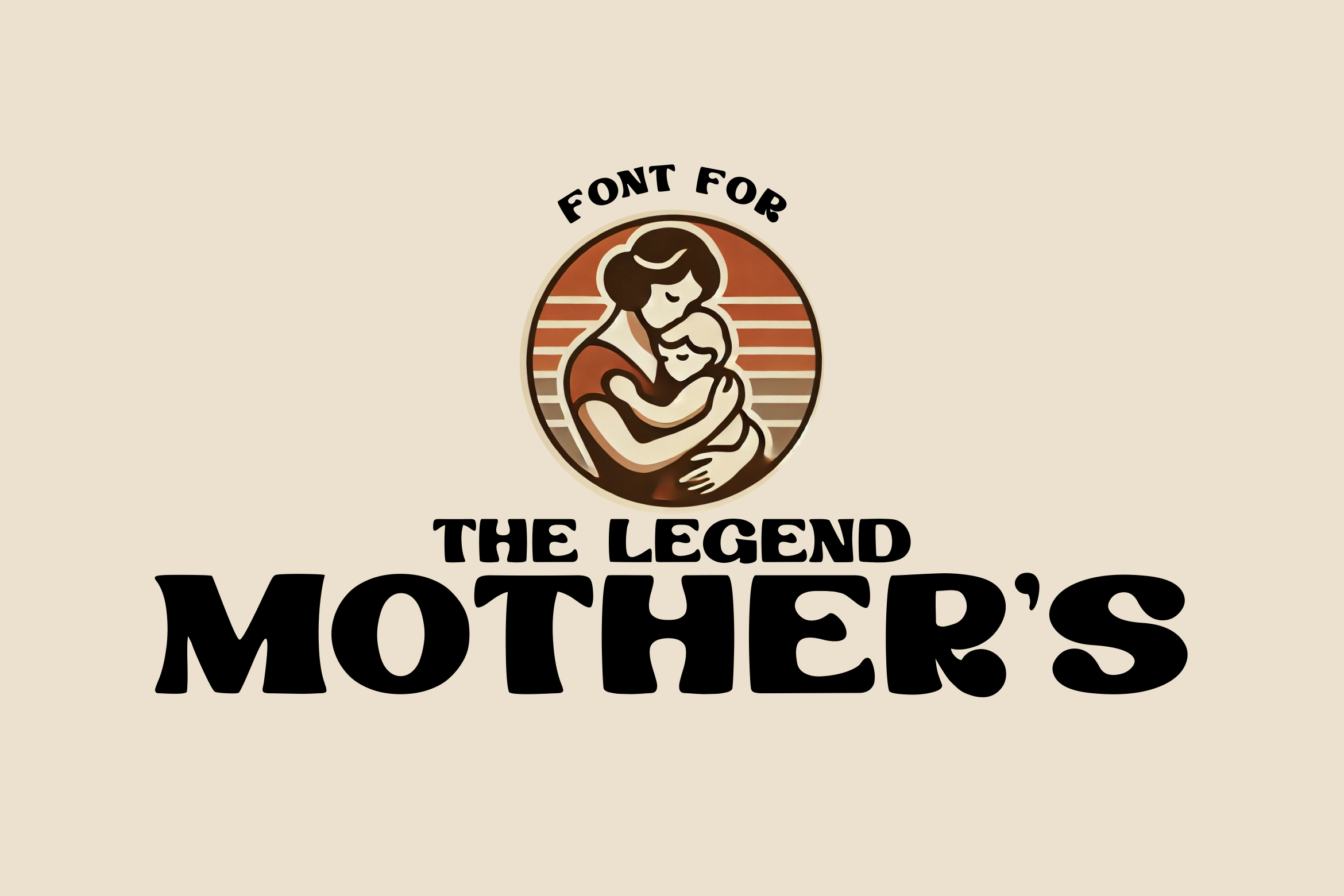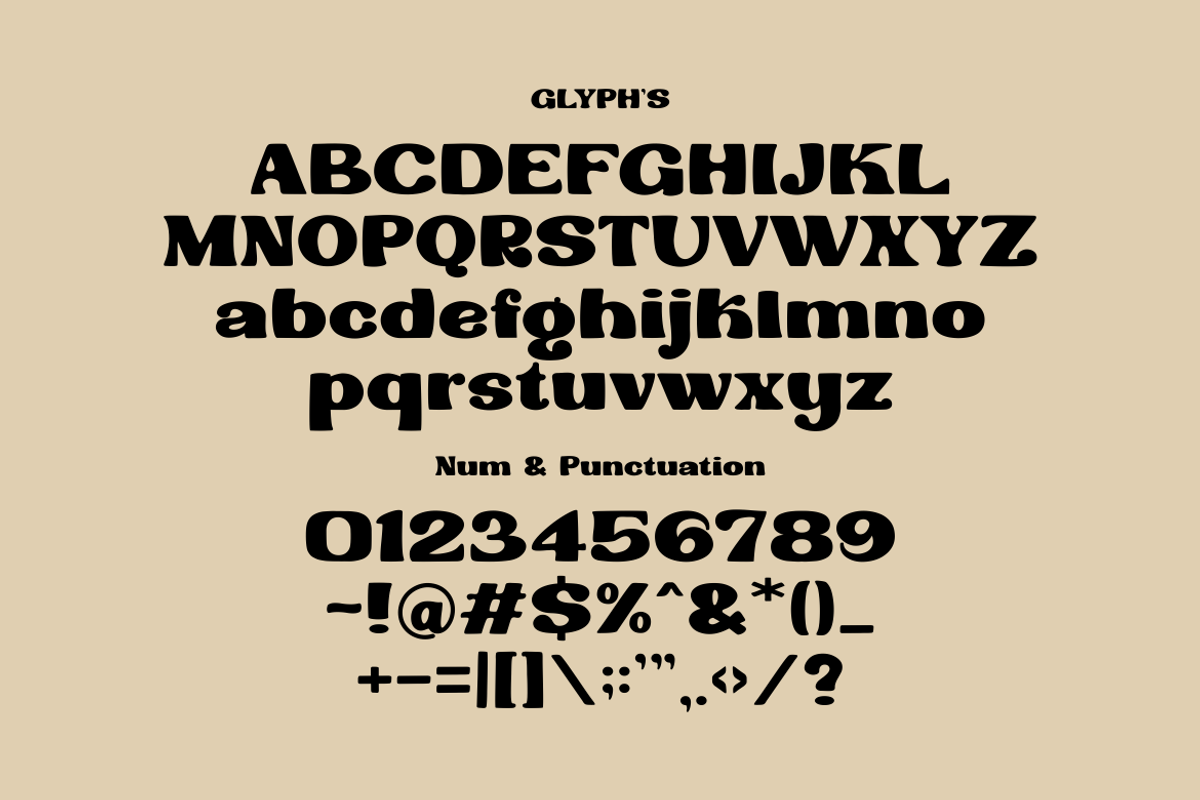
The Legend Mothers Font
The Legend Mother's Font is an elegant and character-rich typeface that blends classic touches with a modern style. With its refined details, artistic curves, and sophisticated appearance, this font is perfect for various design needs such as branding, invitations, logos, and digital artwork.